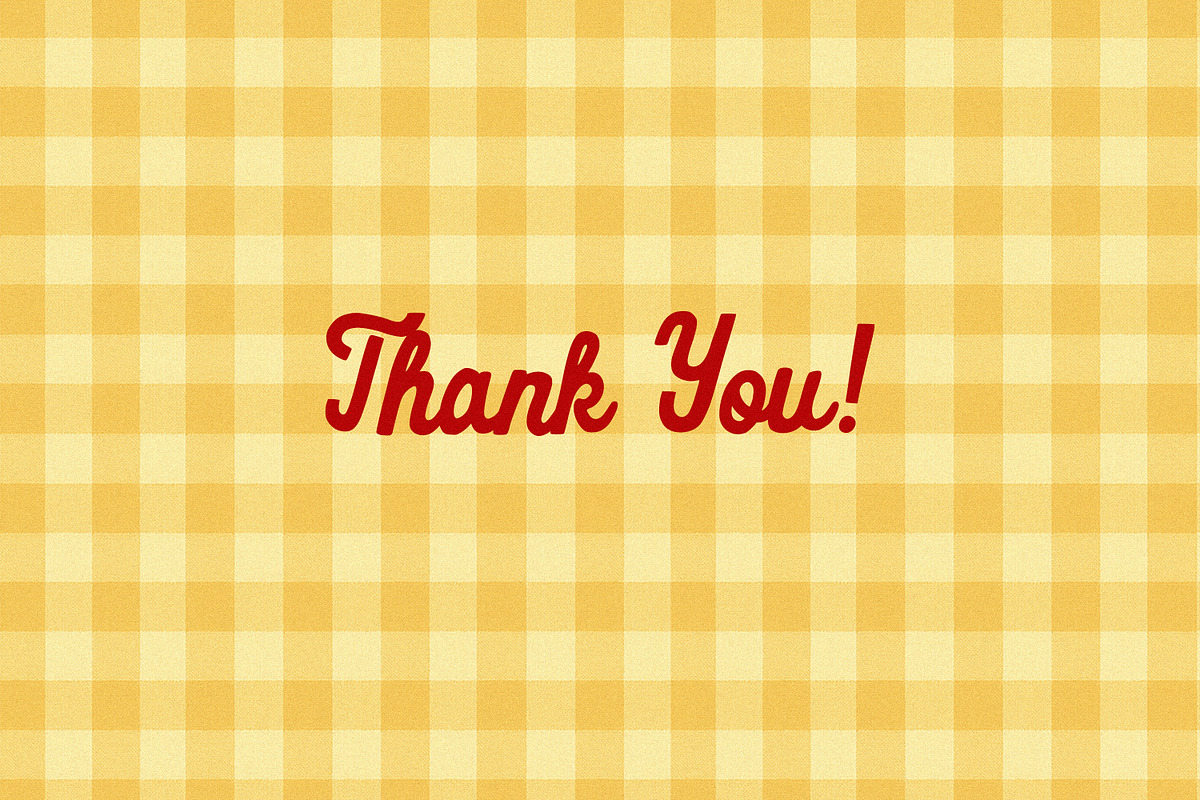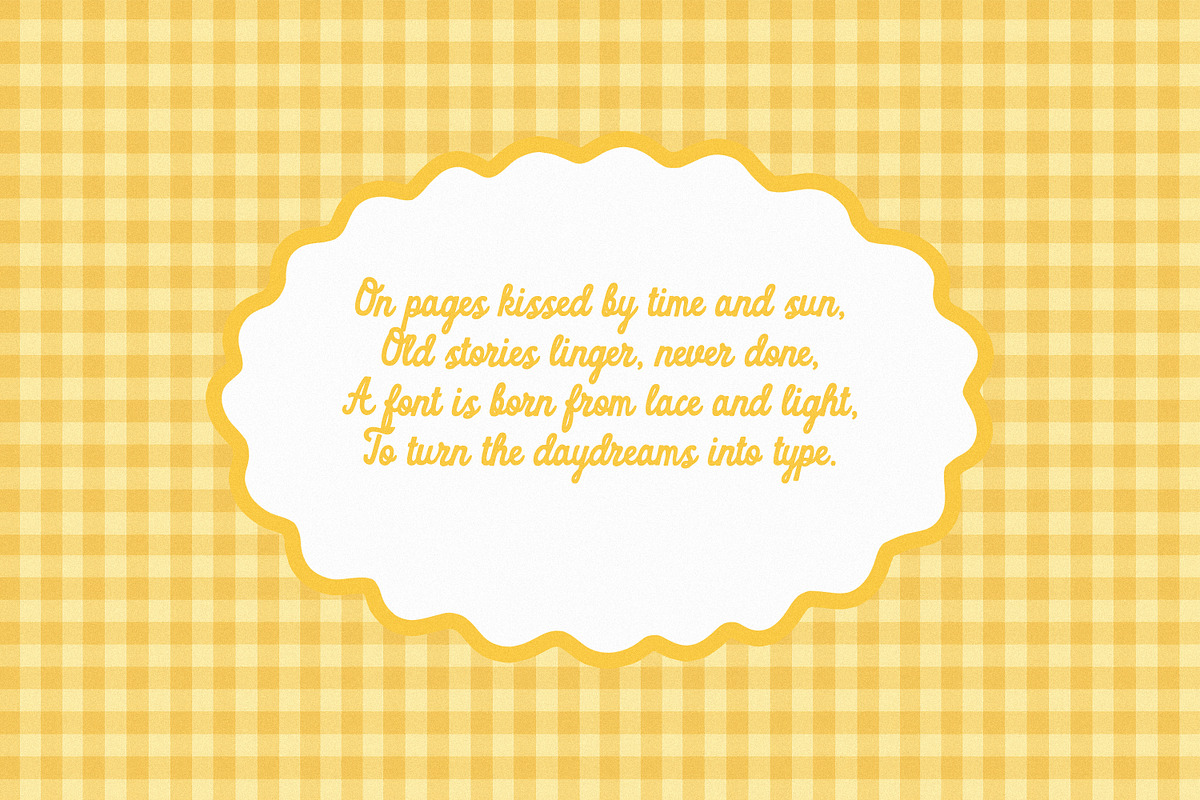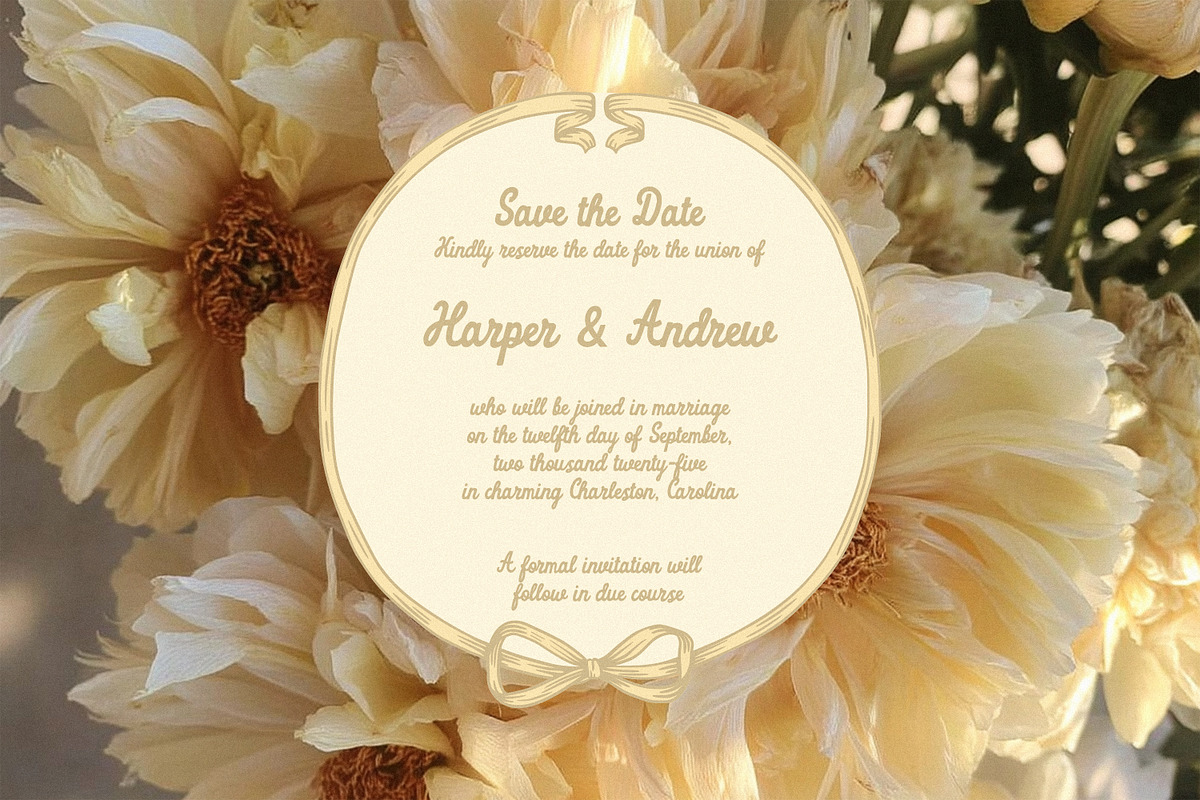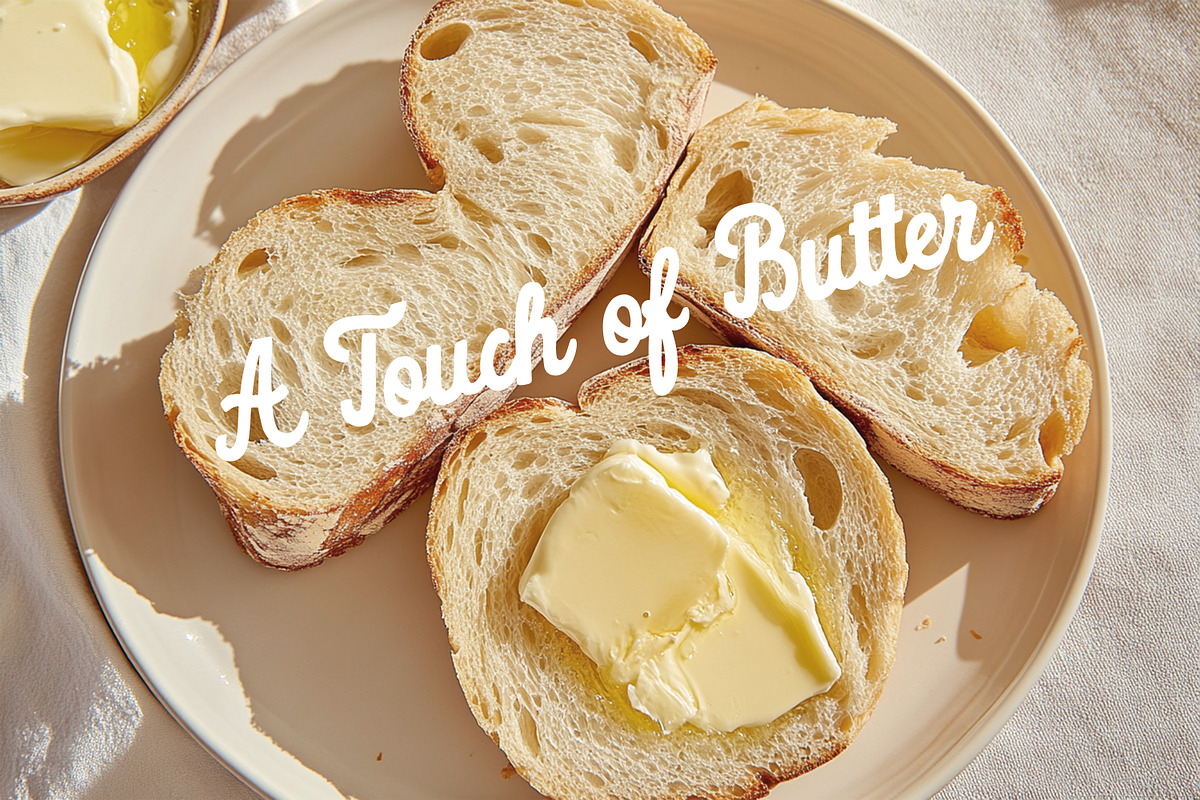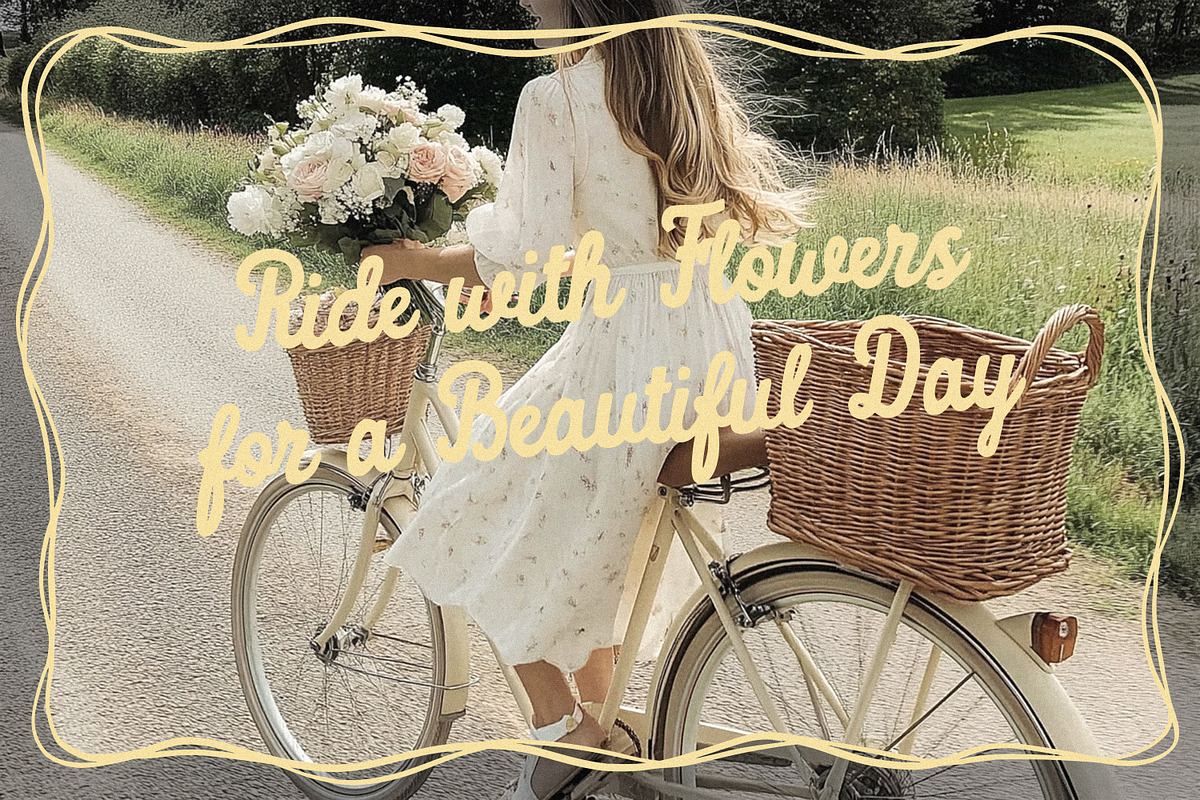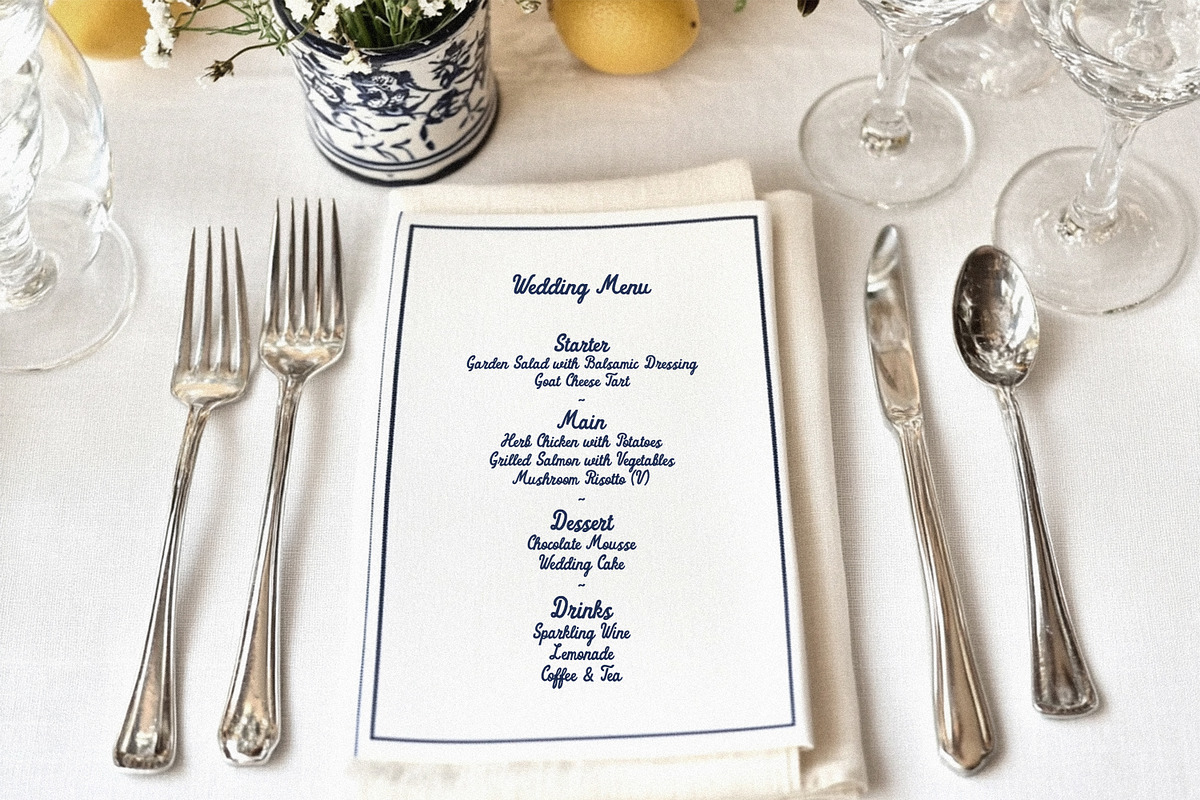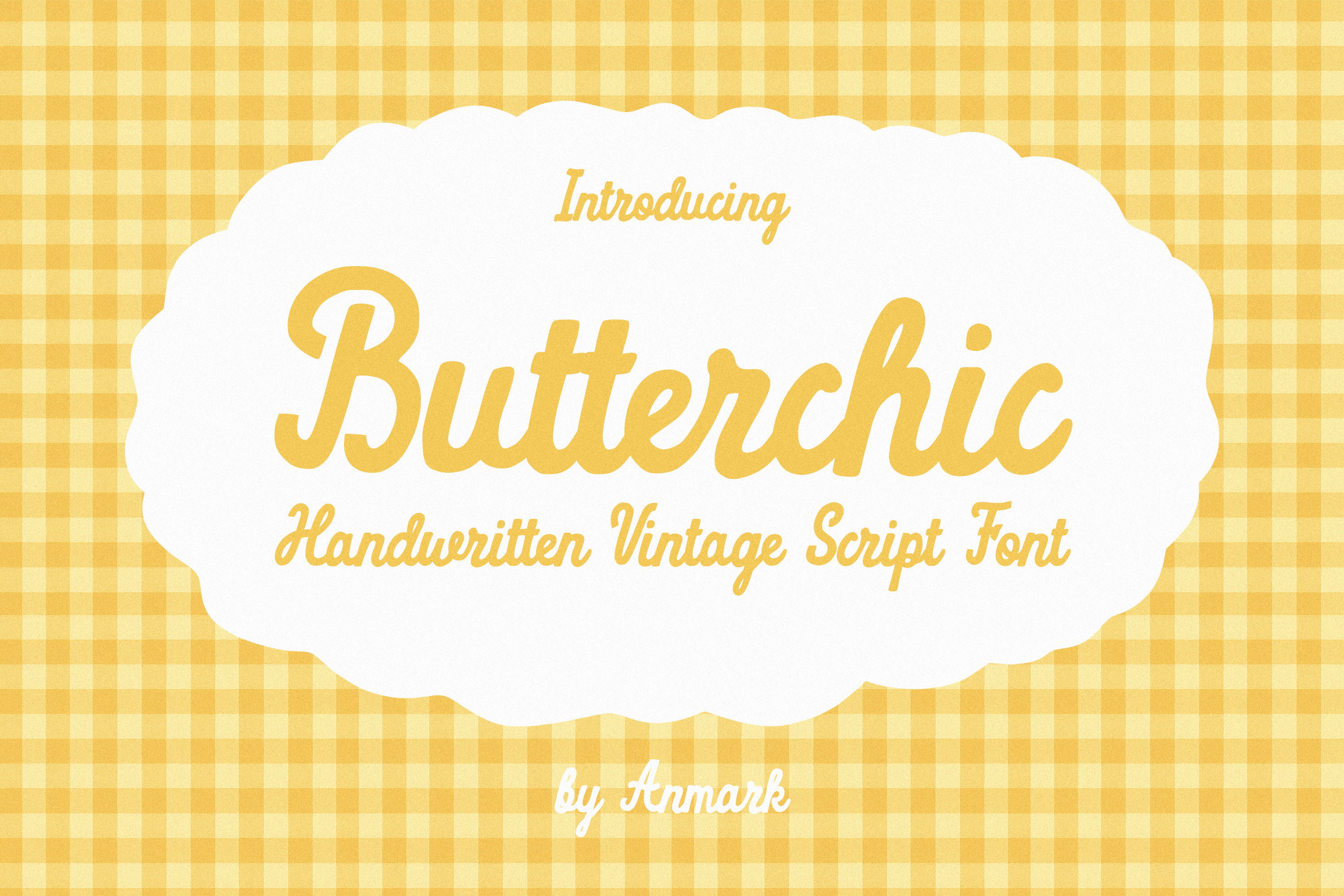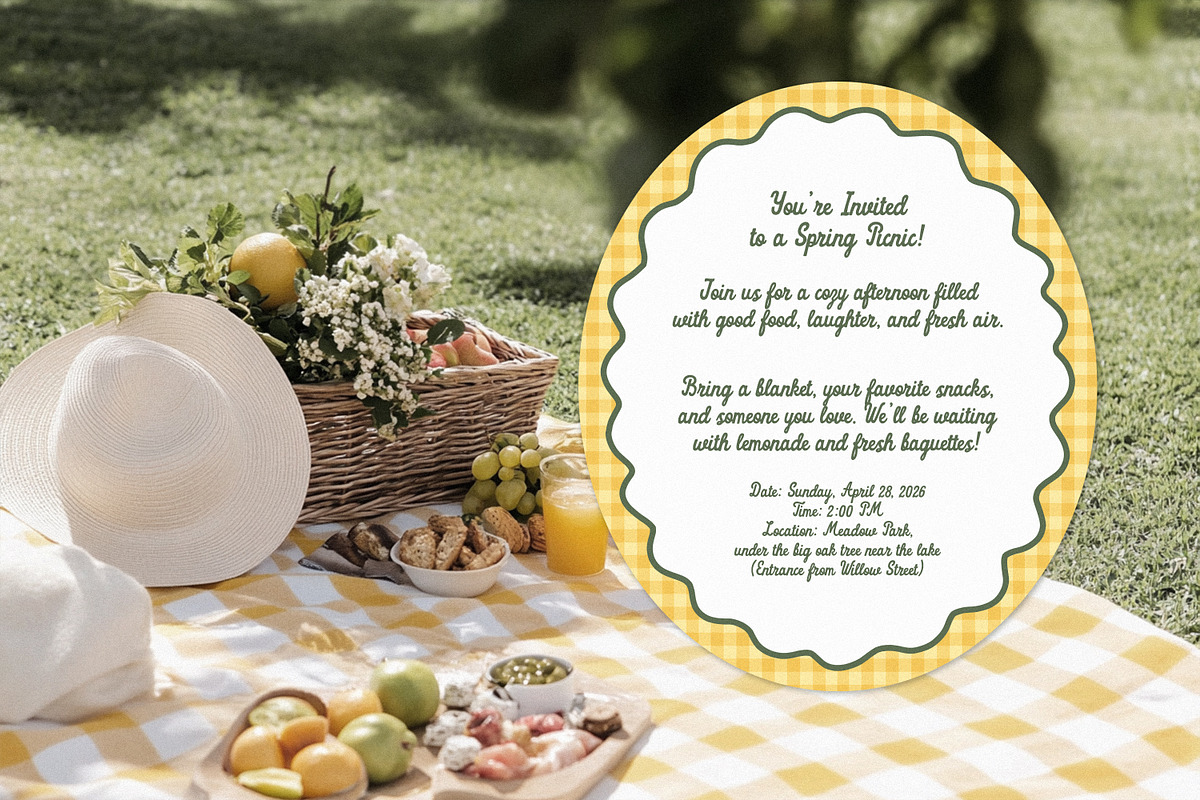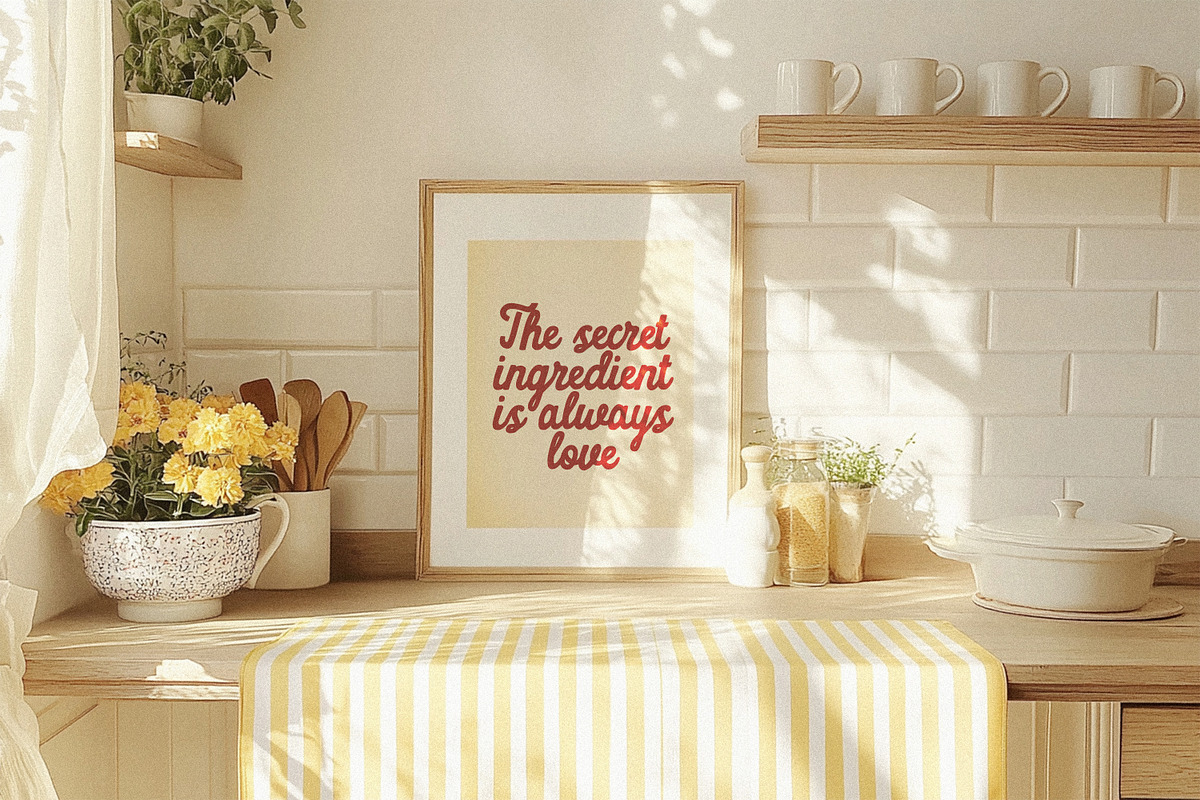
Butterchic Vintage Script Font
Butterchic is a handwritten vintage script font inspired by the charm of old cafés, soft morning light, and nostalgic kitchens filled with the smell of freshly baked bread. With its warm curves and smooth strokes, this font brings a sense of coziness and elegance, perfect for capturing that romantic, cottagecore feeling.
It’s a lovely choice for branding, packaging, wedding stationery, quotes, and vintage-inspired design. Butterchic adds personality and softness to any creative project, especially where a sweet, feminine, or homemade touch is needed. It’s ideal for headlines, logos, and short texts with a unique character.